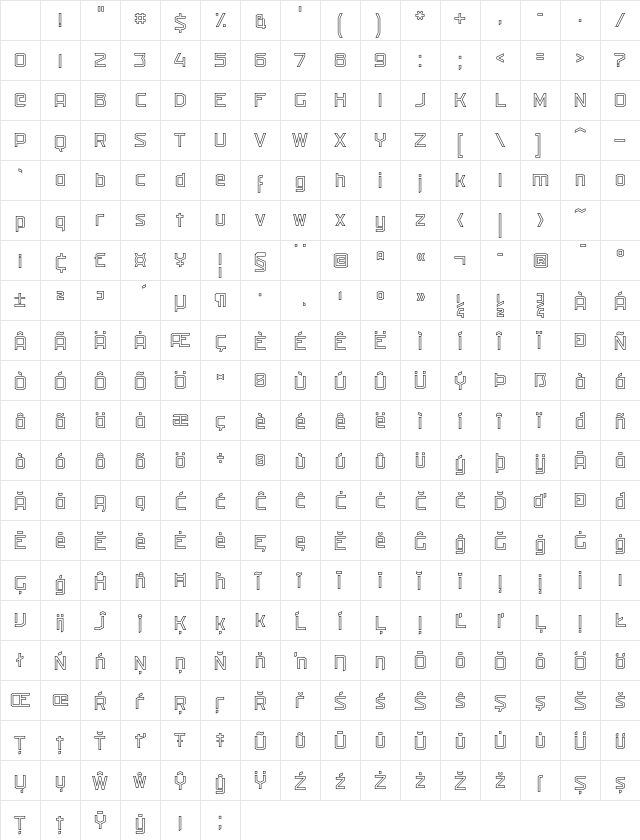
Militech has a distinctly futuristic character, with geometric precision and clean angles that feel at home in technology, gaming, and sci-fi contexts.
Pro Tip: Try Militech with generous letter-spacing in UI labels and navigation - the geometric forms benefit from room to breathe.